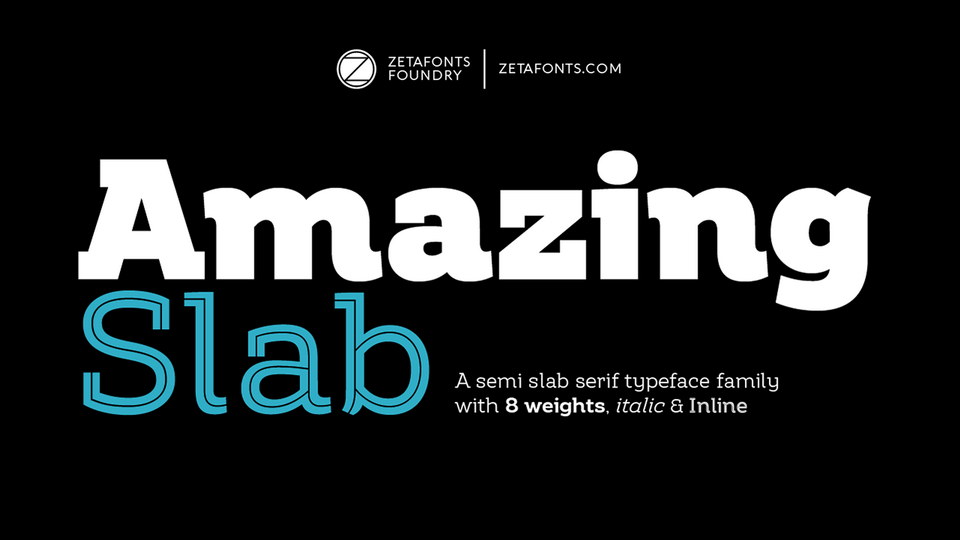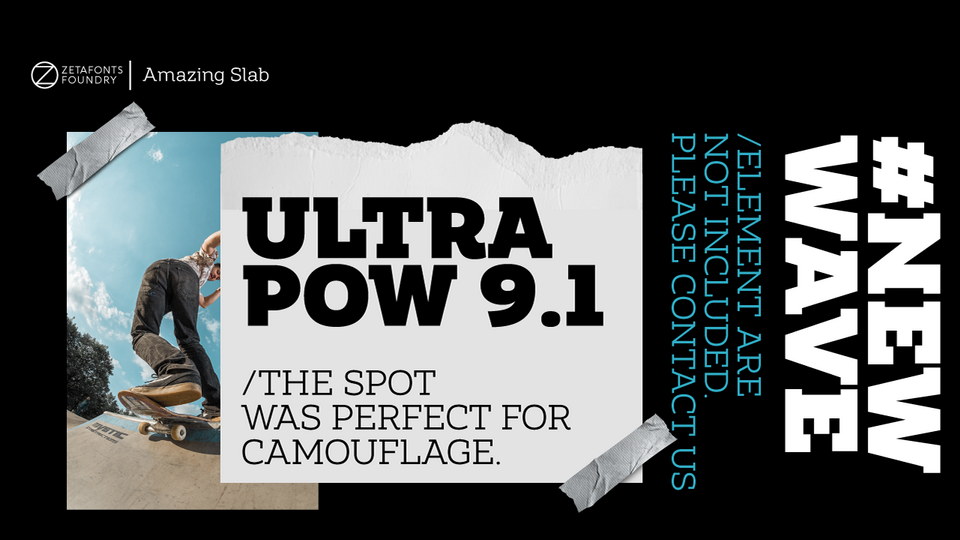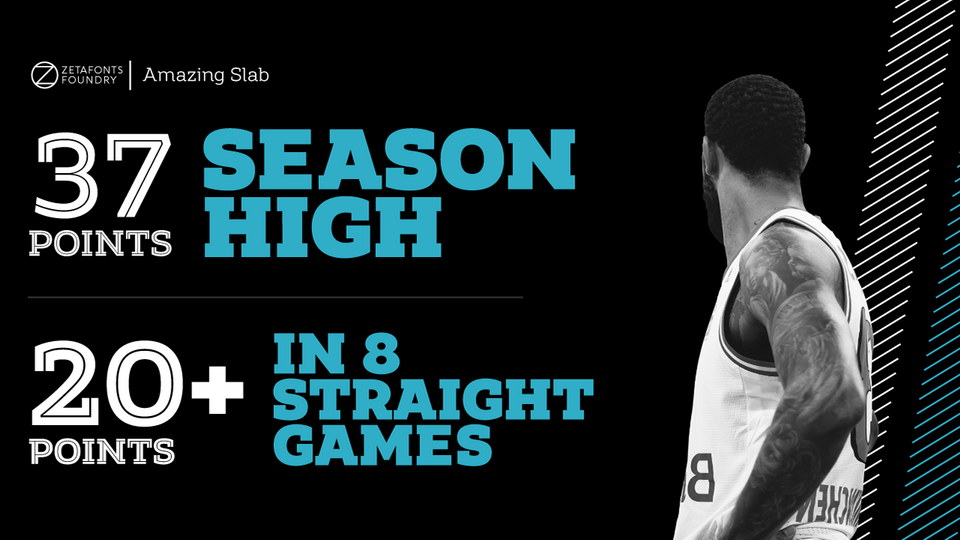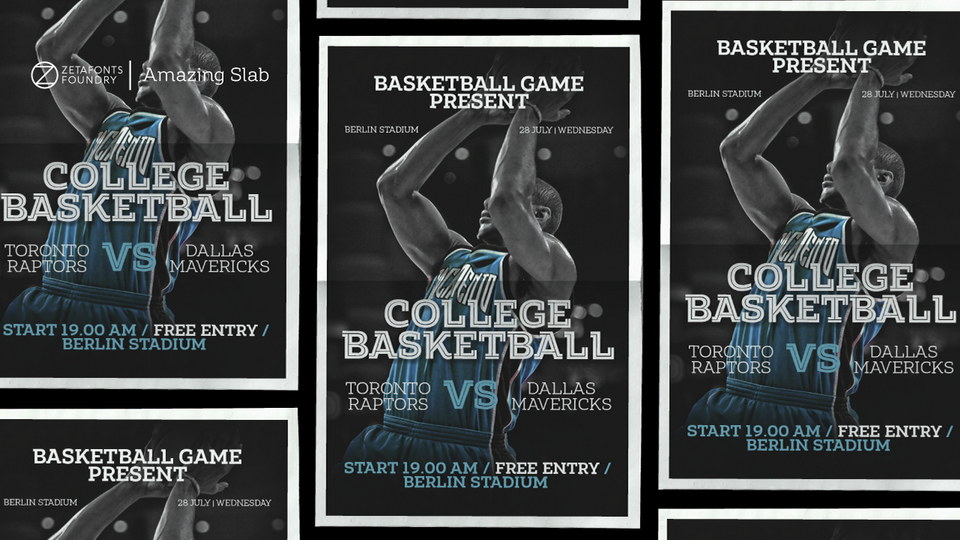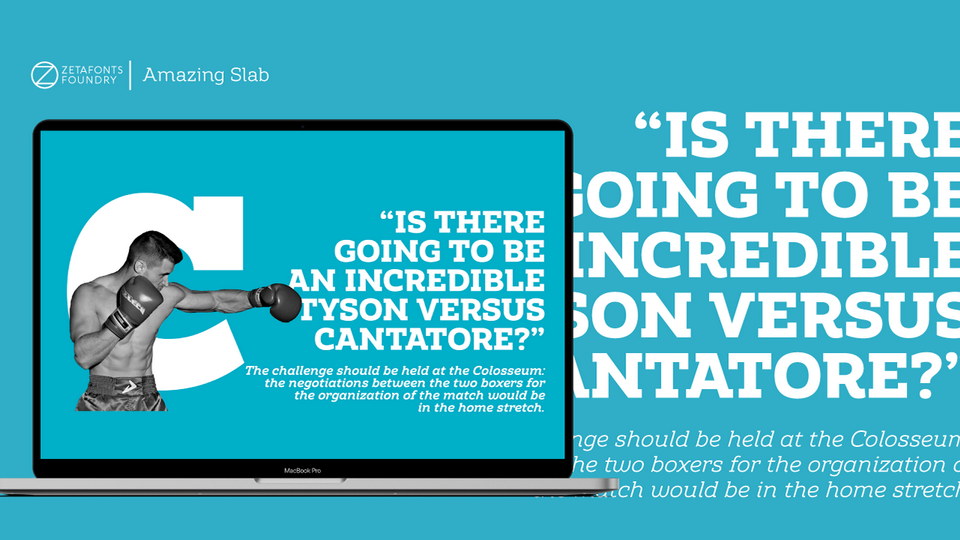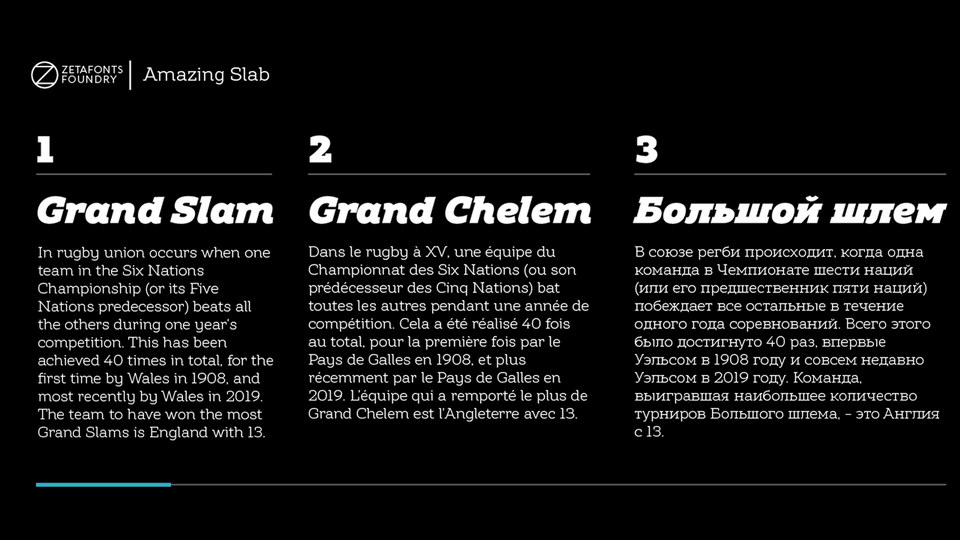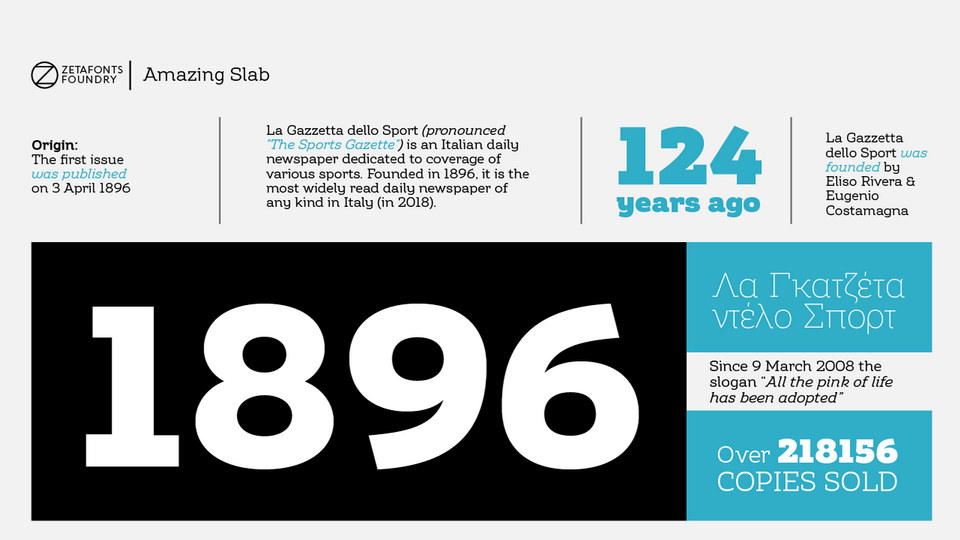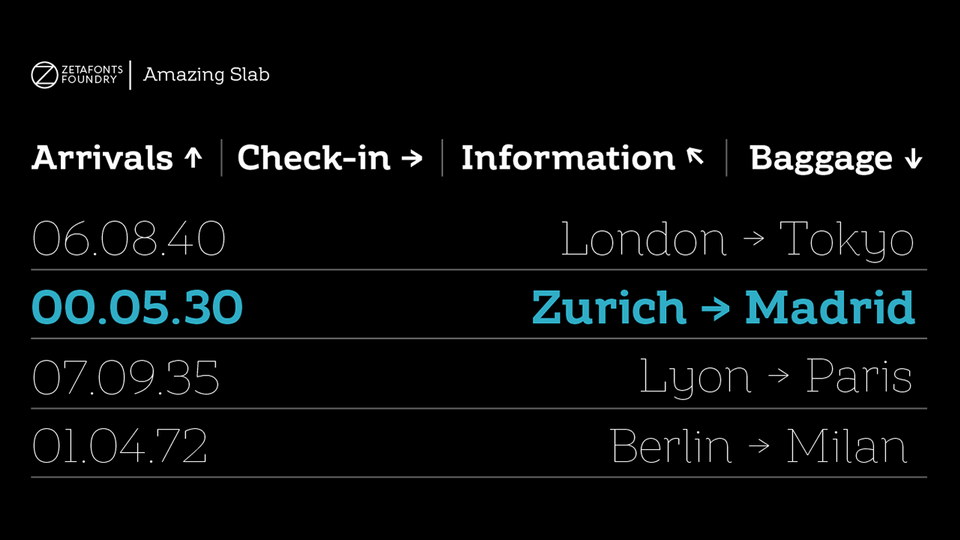
Amazing Slab is a typeface family that mixing an egyptian serif, low contrast approach with the curved endings and open shapes of humanist sans grotesques. It was developed to embody the energetic and friendly nature of the startup scene: a feeling of innovation, information and energy, with a desire for simplicity and straightforward communication.
The basic design shapes for the font come from the strong personality of the extrabold letterforms drawn by Francesco Canovaro for his StartupItalia logo, that informed the display design of the four darkest weights (from medium to black). Each of these weights, has been paired with an inline version, designed by Mario De Libero, to extend the range of uses for the typefaces, from bold signage to logo design, to editorial titling.
The lighter range of the family features two weights (regular and light) that are designed for text use, complemented by the thin and extralight weights that are better suited to big point size, for editorial and signage use.
Amazing Slab designed by Francesco Canovaro and Andrea Tartarelli as a development of the Amazing Grotesk family designed by Cosimo Lorenzo Pancini.